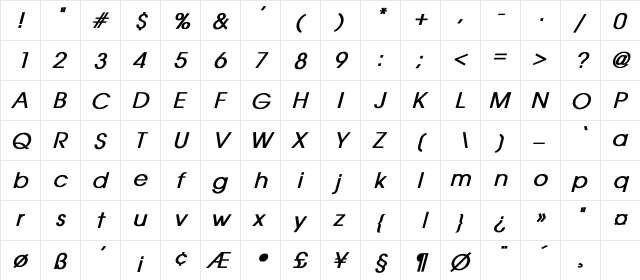
AvantGarde Bold Italic
Design Context for AvantGarde Typeface
AvantGarde offers clean, dependable letterforms without strong stylistic allegiance, making it a practical choice for designers who need flexibility. The dynamic lean of this cut emphasises speed and emphasis in any layout. Its bold stroke weight gives it real presence on the page.
Pro Tip: Try AvantGarde for annotation and caption copy alongside an upright companion — the contrast in angle creates a dynamic but ordered typographic system.